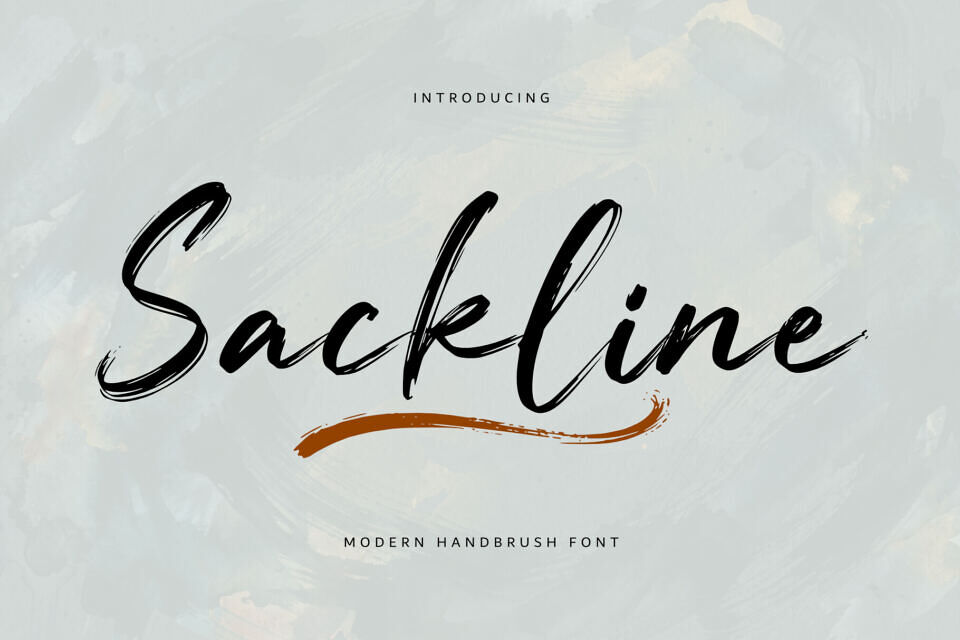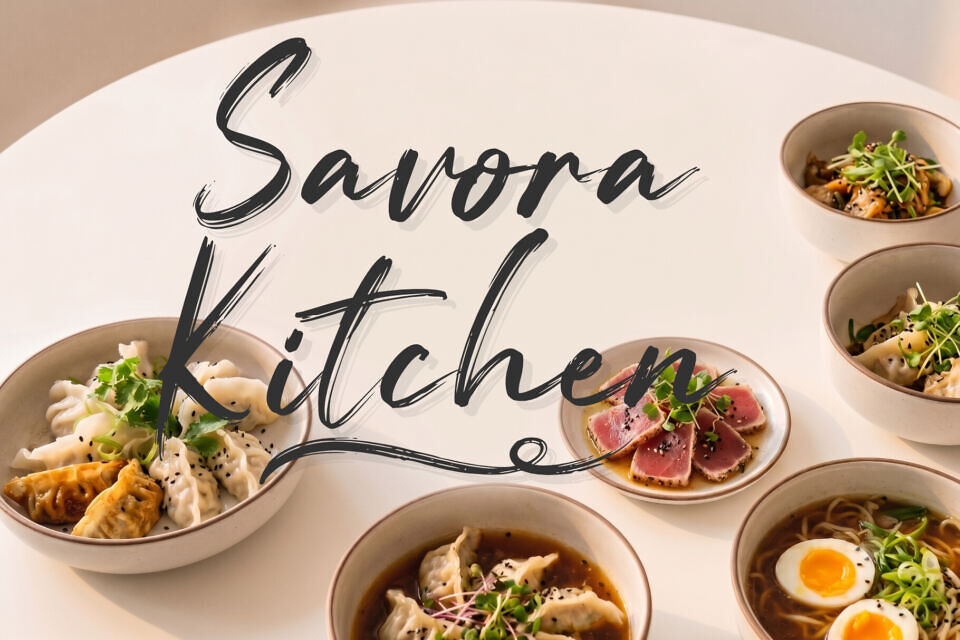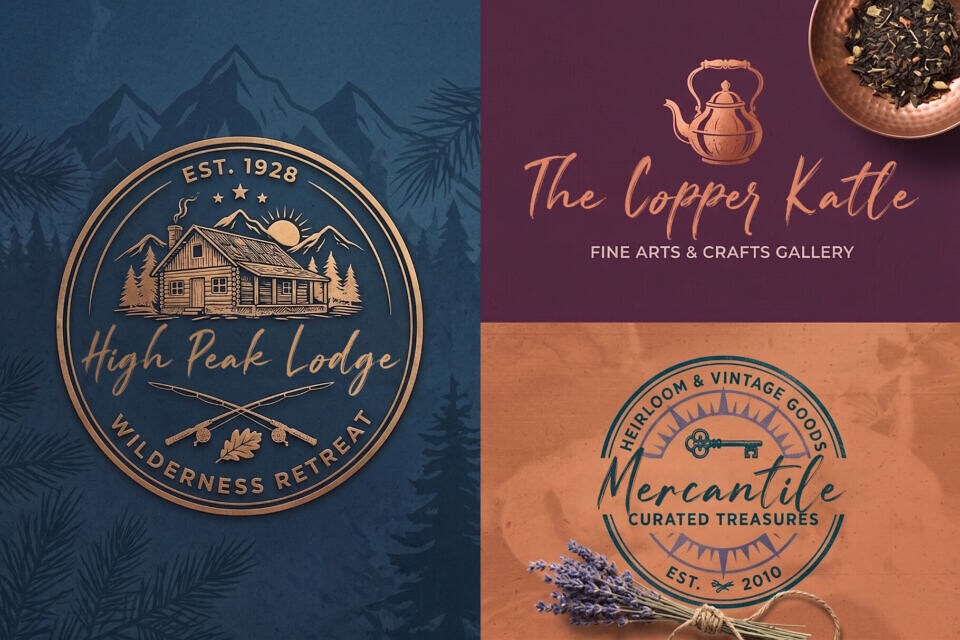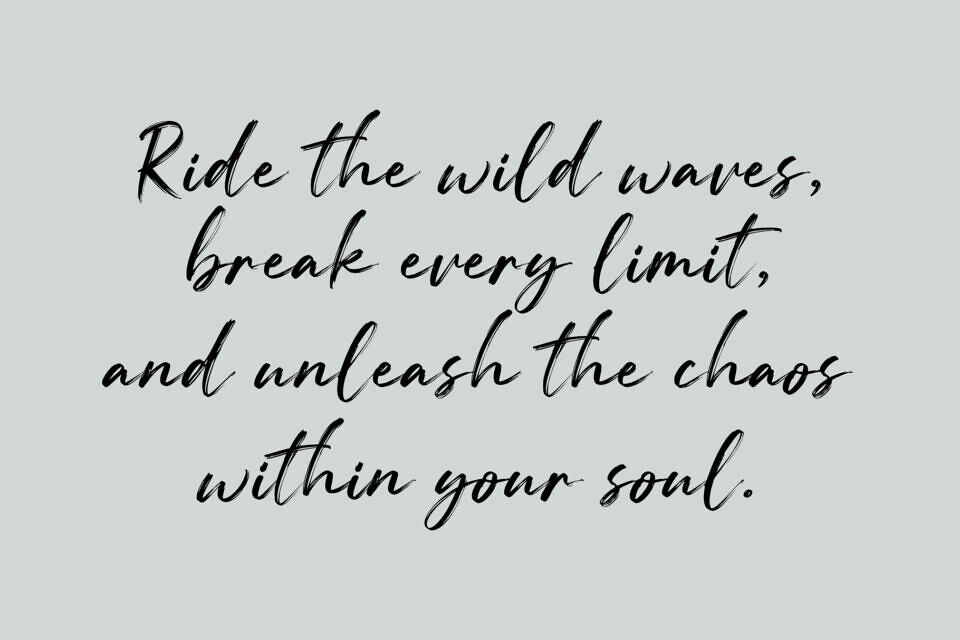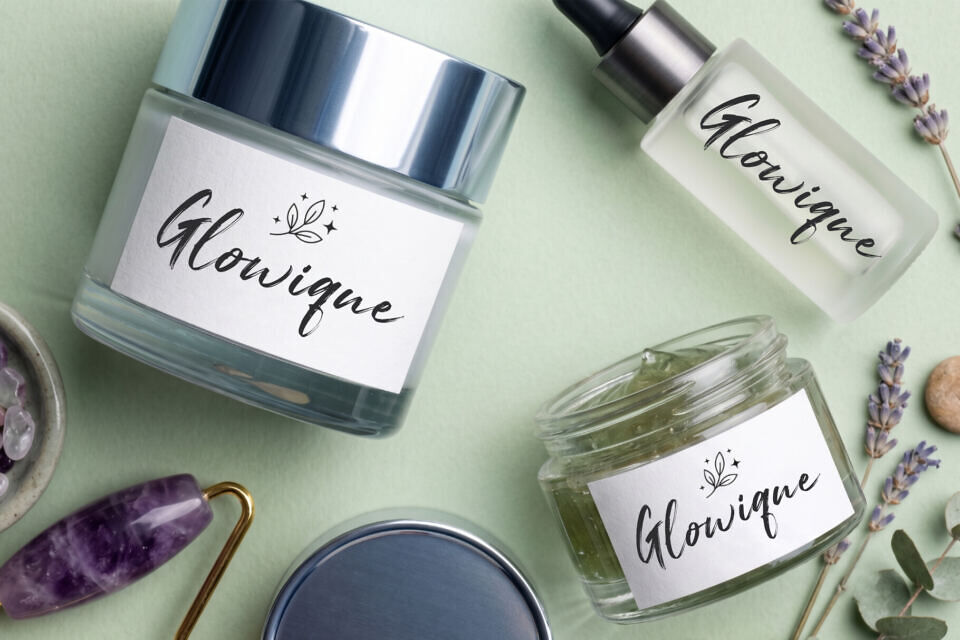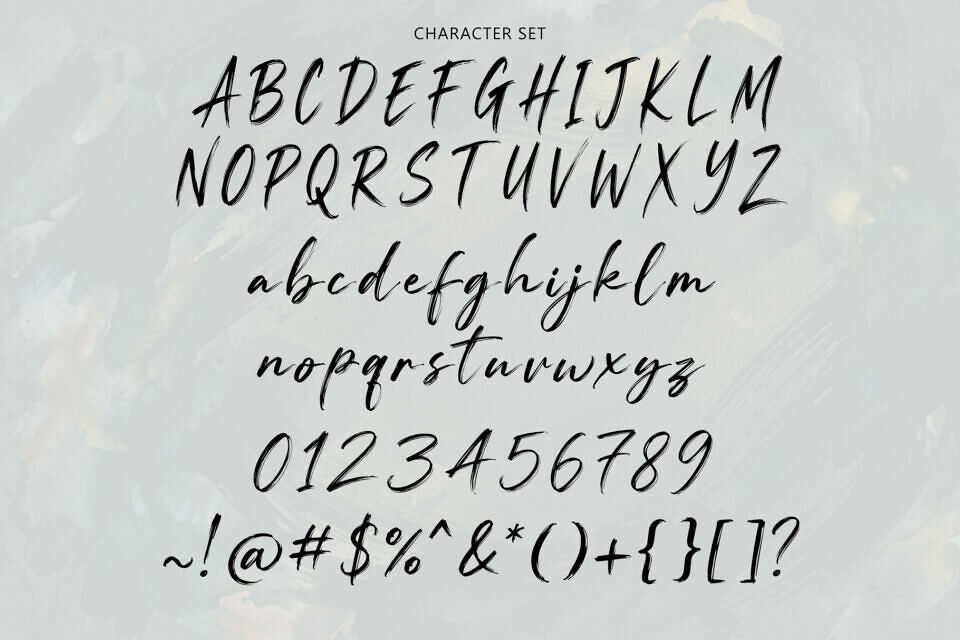
Sackline Font
Sackline is a bold and expressive modern handbrush font that captures the raw beauty of natural brush strokes. Designed with a dynamic flow and authentic texture, this font delivers a perfect balance between elegance and energy, making it ideal for eye-catching typography.
Each letter is carefully crafted with rough edges and smooth curves, creating a natural handwritten feel that adds personality and character to your designs. The strong strokes and stylish swashes give Sackline a distinctive look that stands out in any creative project.